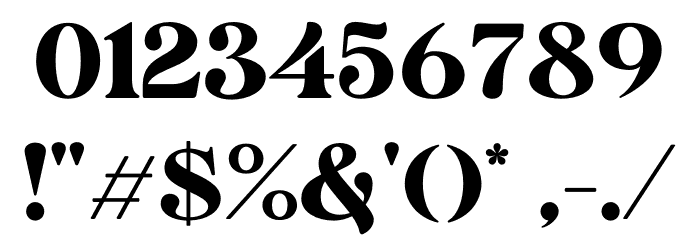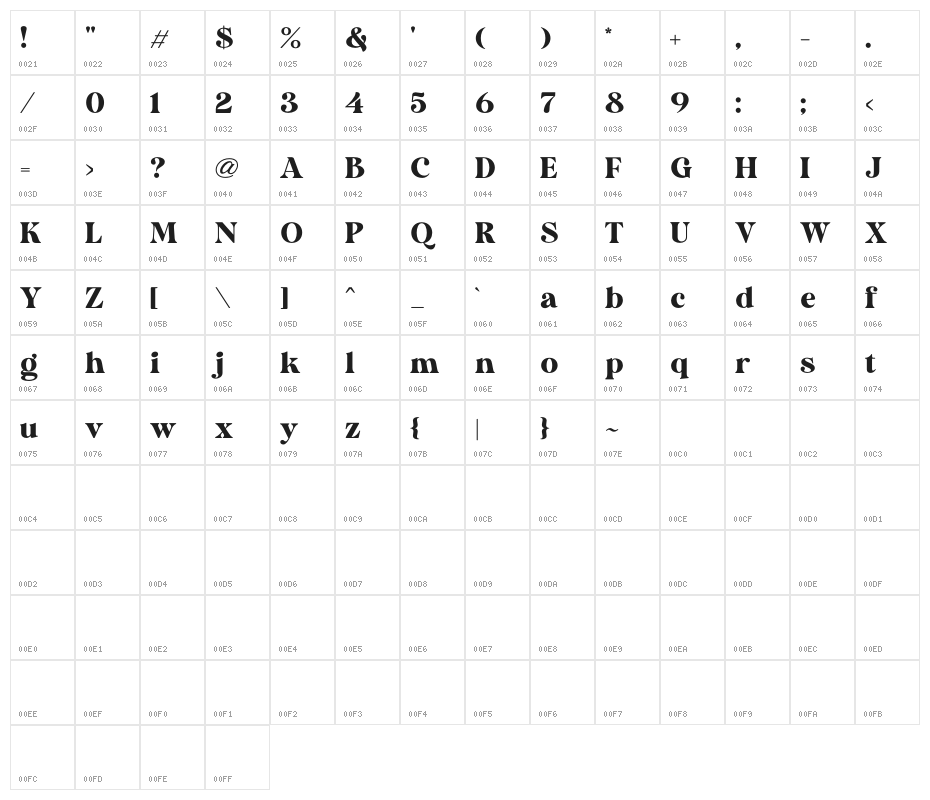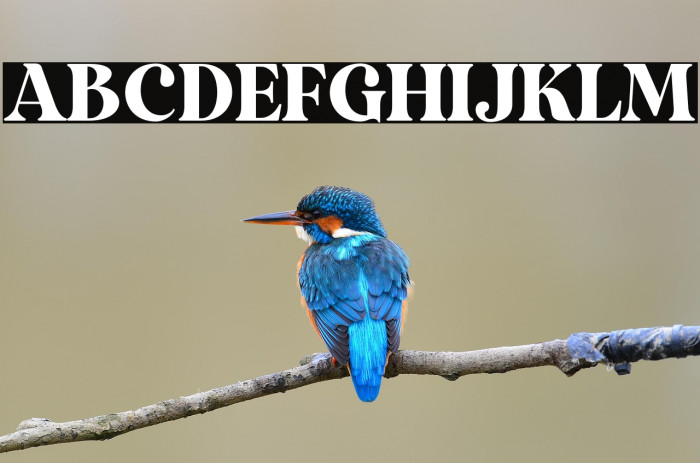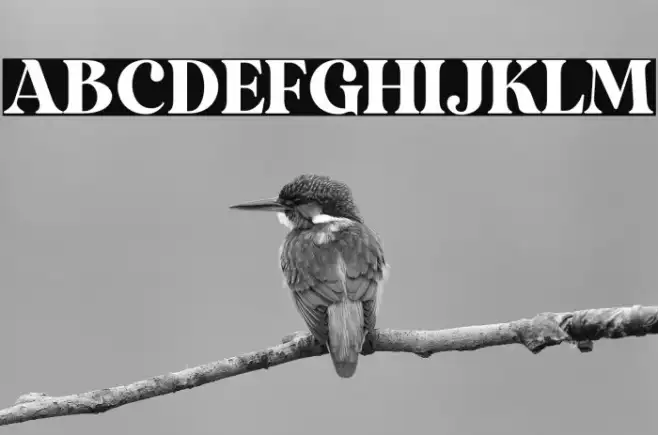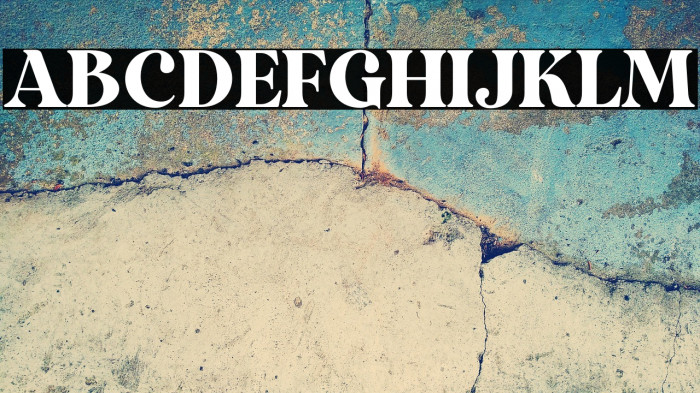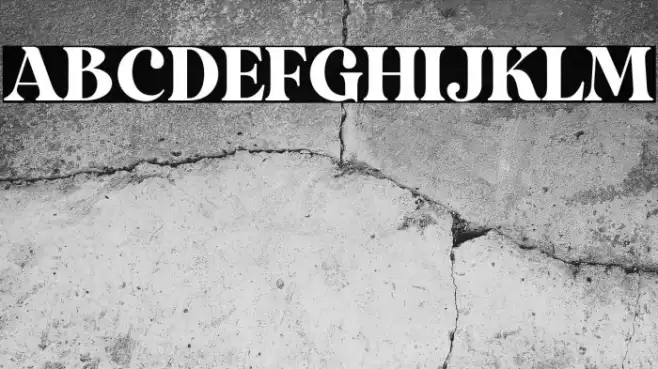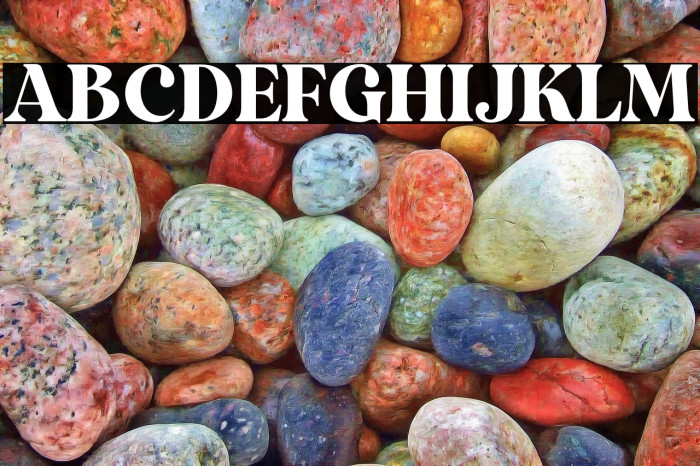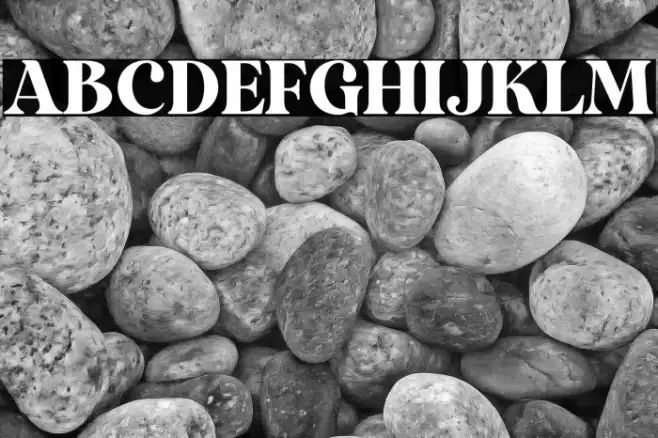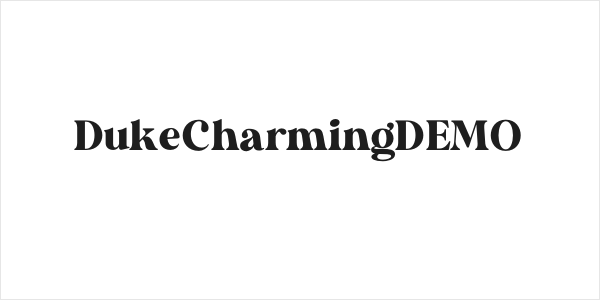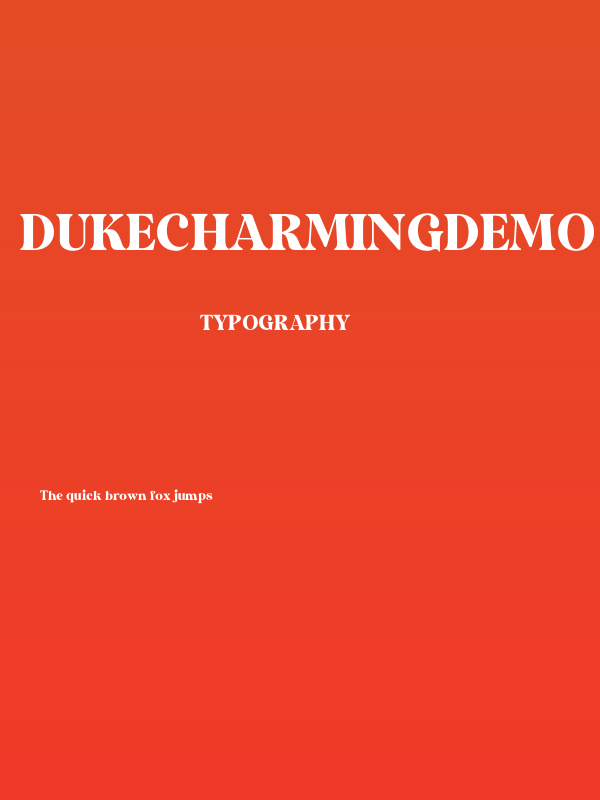
DukeCharmingDEMO Font
DukeCharmingDEMO Description
This font features a bold and dramatic style with high contrast between thick and thin strokes, giving it a strong and commanding presence. The serifs are pronounced and slightly curved, adding a touch of elegance and sophistication. The uppercase letters are particularly striking, with a sense of grandeur and authority. The lowercase letters maintain a consistent style, with rounded forms that balance the overall sharpness of the font. The numerals are clear and distinct, ensuring readability. Special characters are well-integrated, maintaining the font's cohesive aesthetic. This font is ideal for making a bold statement in any design project.
| Proposed Projects | Ideal for headlines, branding, posters, and editorial design where a bold statement is needed. |